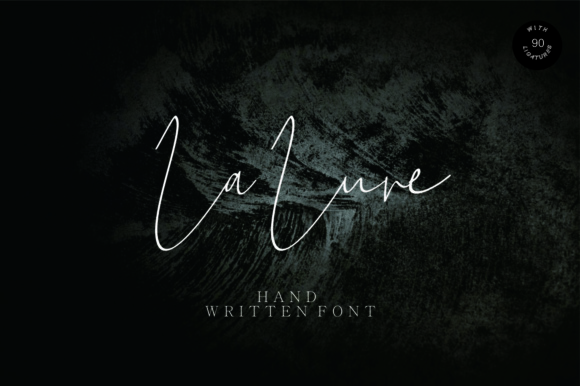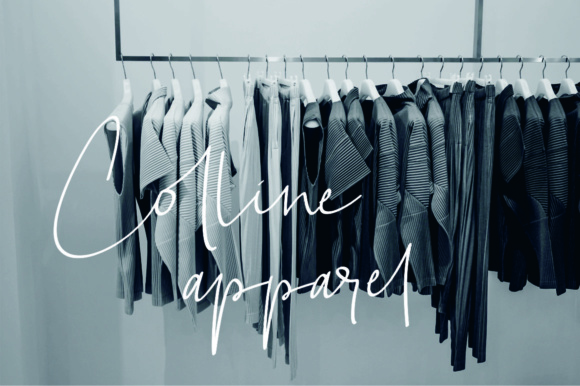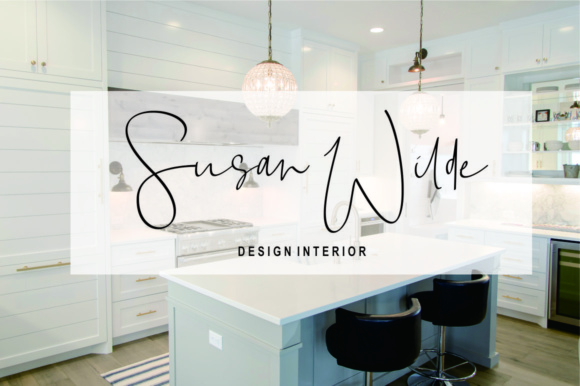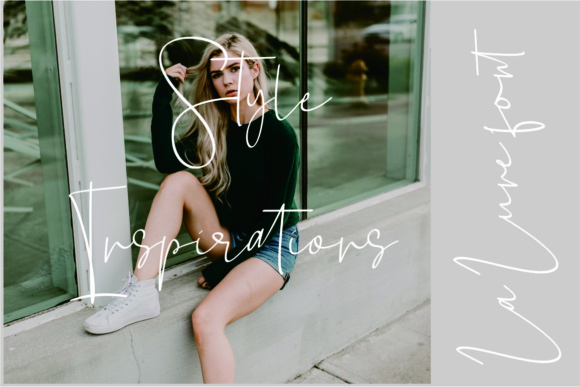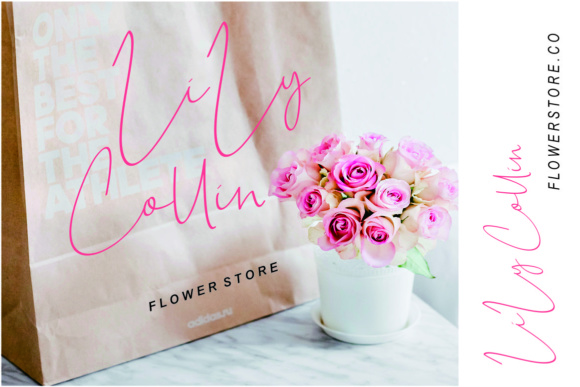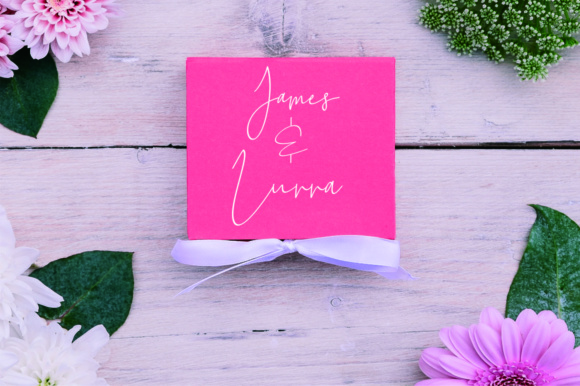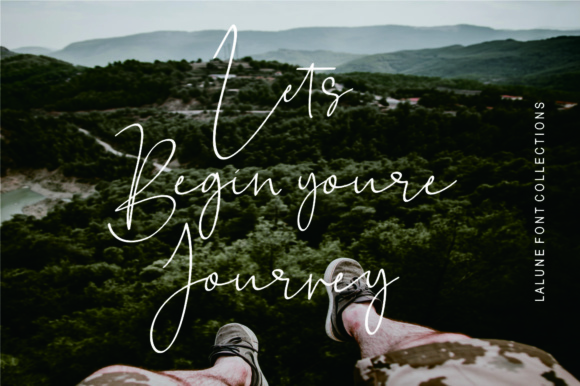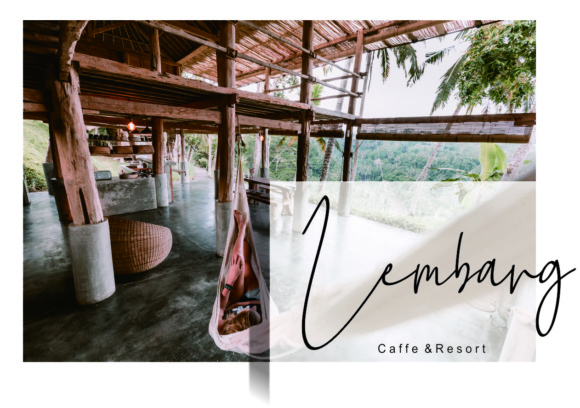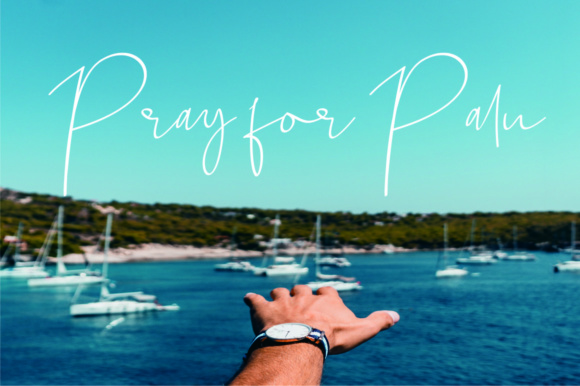
La Lune Font
About La Lune Font
The La Lune is a beautiful handwritten font. It has an elegant style while maintaining a modern feel.
It can be used for logos, magazines, packaging, quotes, and much more!